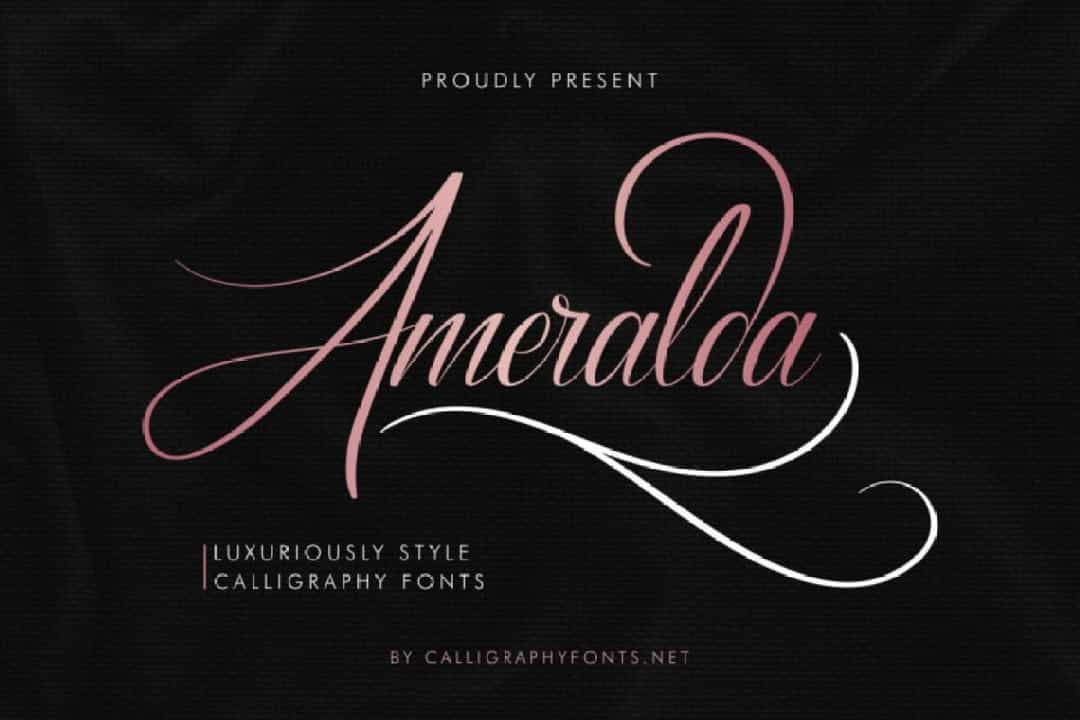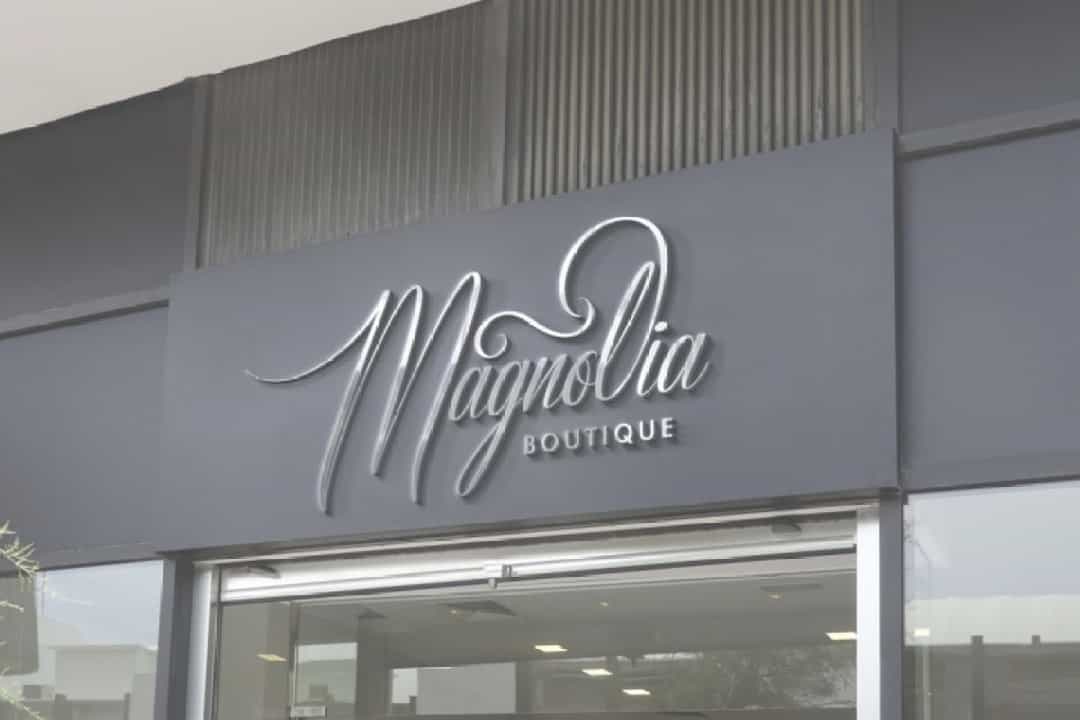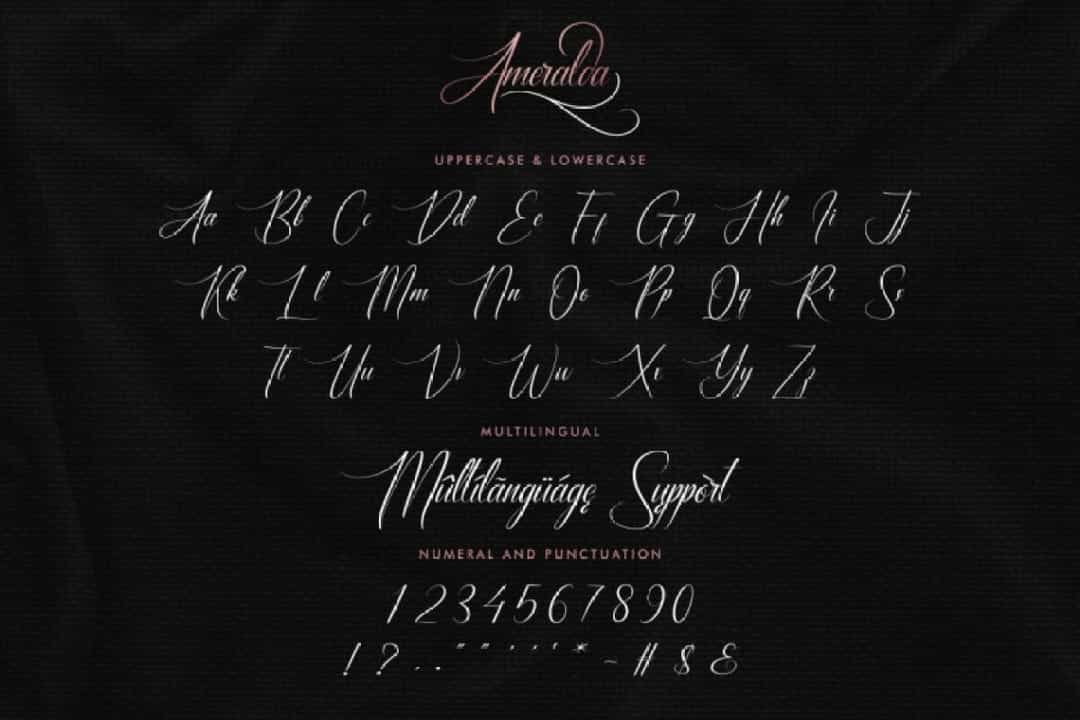
Ameralda is a elegant and stylish font suitable for caligraphy style. This font is royal, classy, sophisticated, glamorous, modern and chic all at the same time.